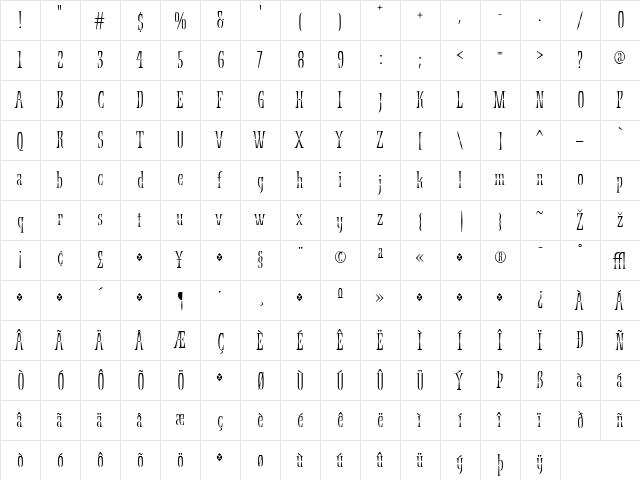
Ecru Regular
| Foundry | designed by Richard Lipton. Produced by The Font Bureau, Inc |
Design Context for Ecru Typeface
Ecru offers clean, dependable letterforms without strong stylistic allegiance, making it a practical choice for designers who need flexibility.